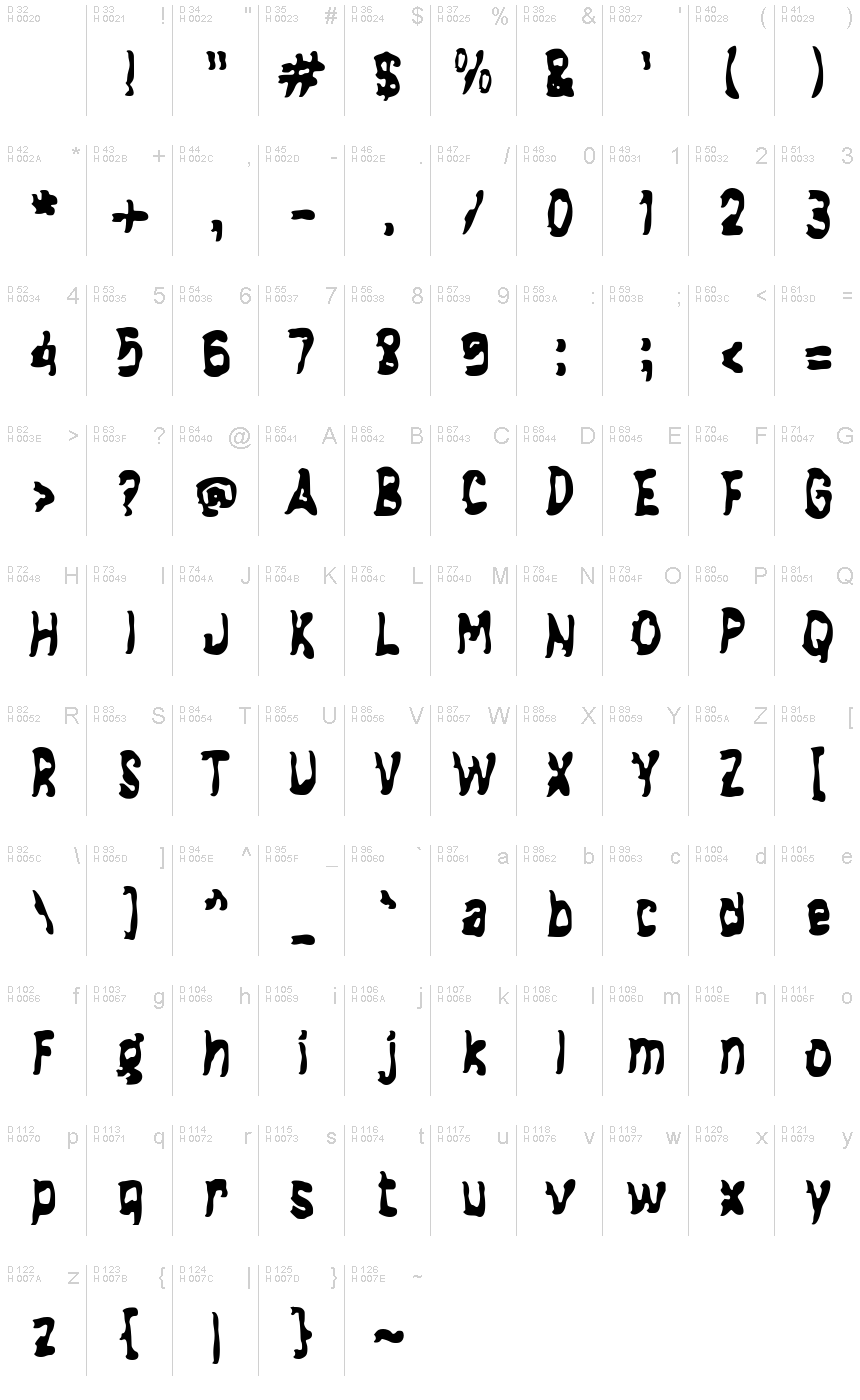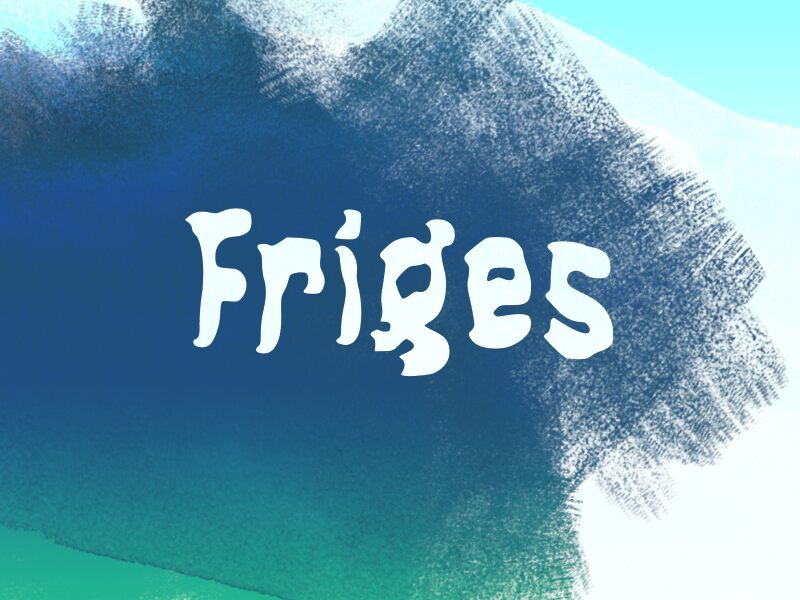
Friges
Friges, designed by wep, emerges as a display font with an intriguing eroded texture that speaks to a vintage aesthetic with a modern twist. Its condensed form makes each character stand out with personality and presence, evoking the gritty feel of street art and the authenticity of handmade signage.
The raw charm of Friges lends itself to design scenarios that call for a touch of the unconventional. Whether it's branding for artisanal products, music album covers, or edgy editorial layouts, this font is poised to deliver messages with impact and character. It is particularly well-suited for projects where a sense of time-worn resilience needs to be communicated through typography that's both impactful and expressive.